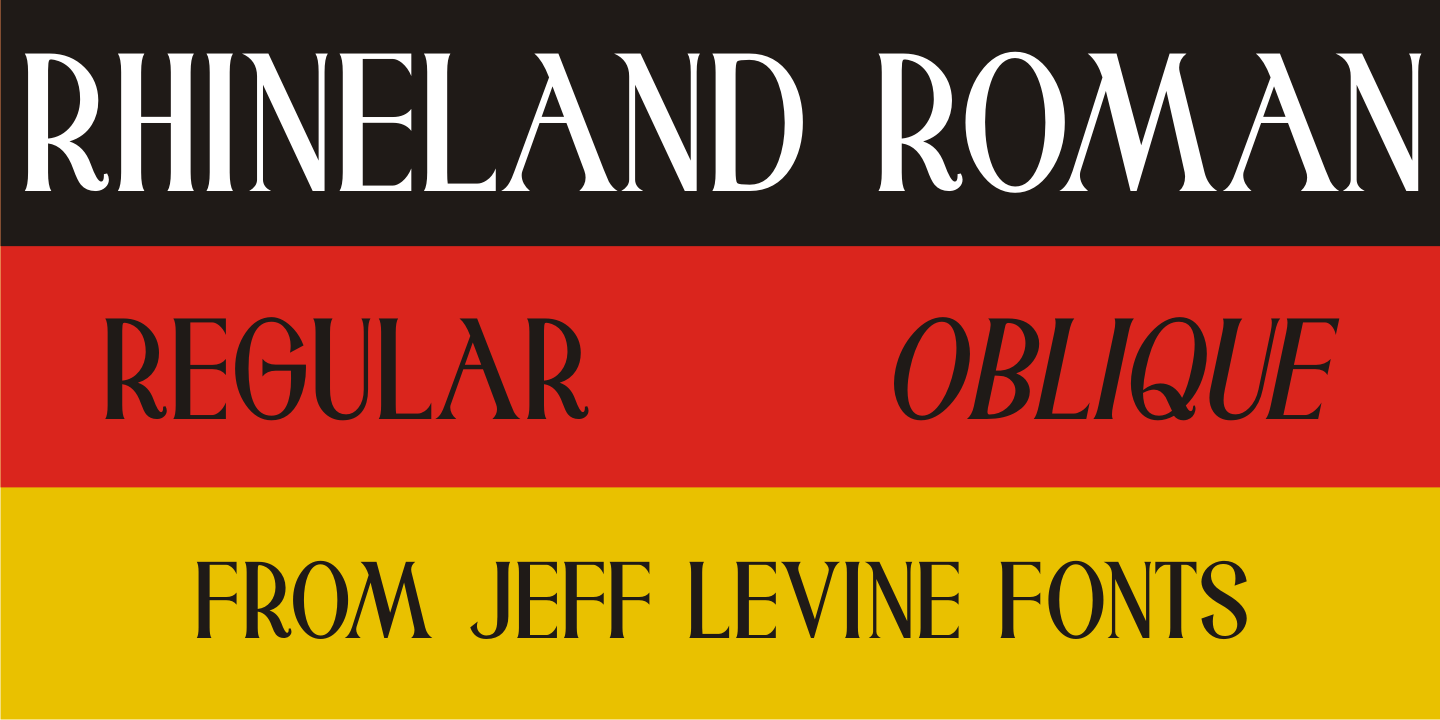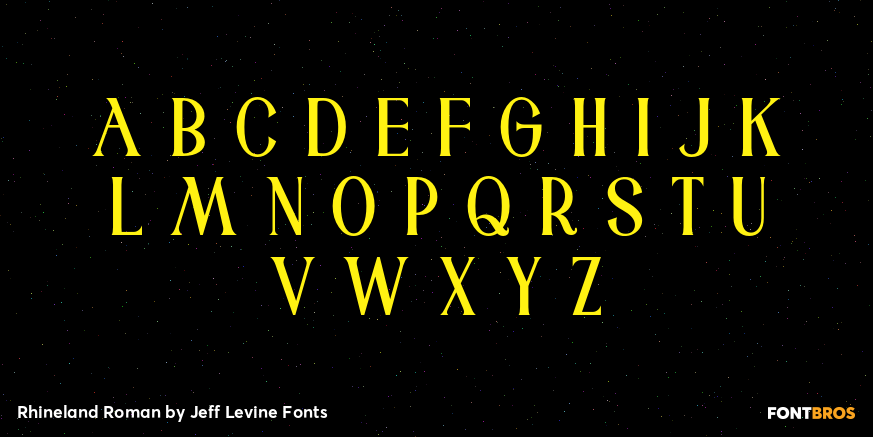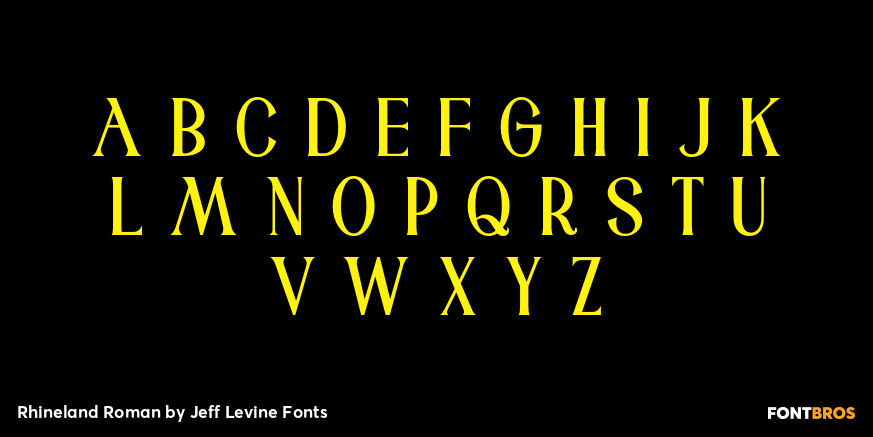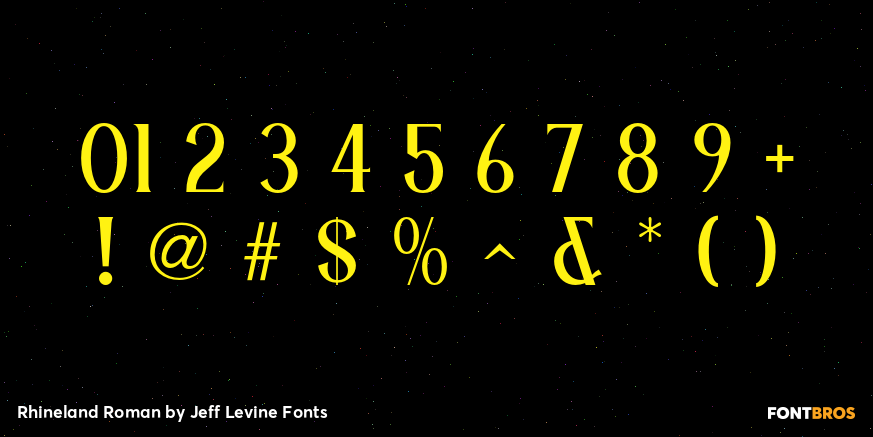
Rhineland Roman
Rhineland Roman JNL was modeled from the hand lettered title of some 1939 German sheet music entitled "Ich Hab'Mir Fur Grinzing", and is available in both regular and oblique versions.